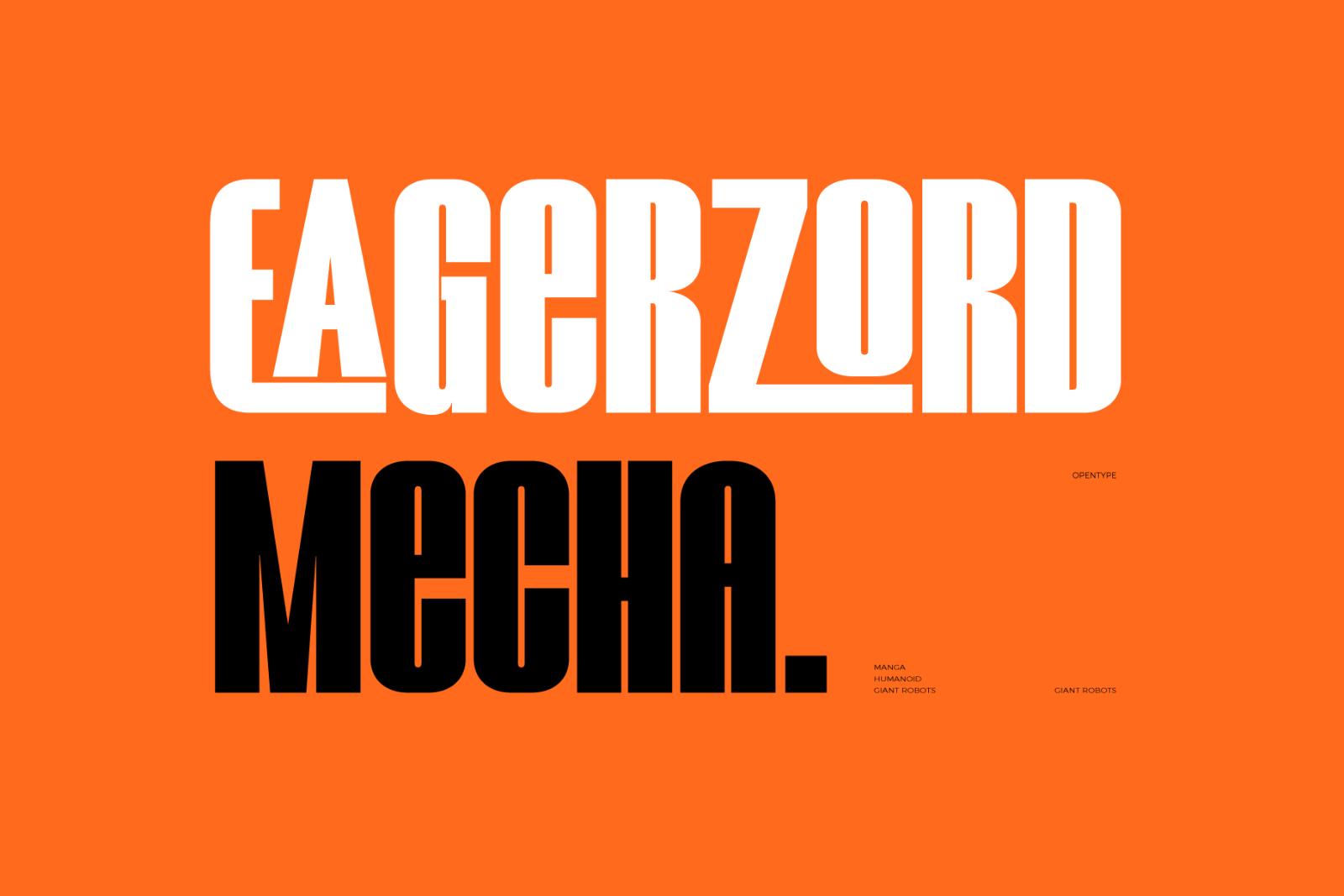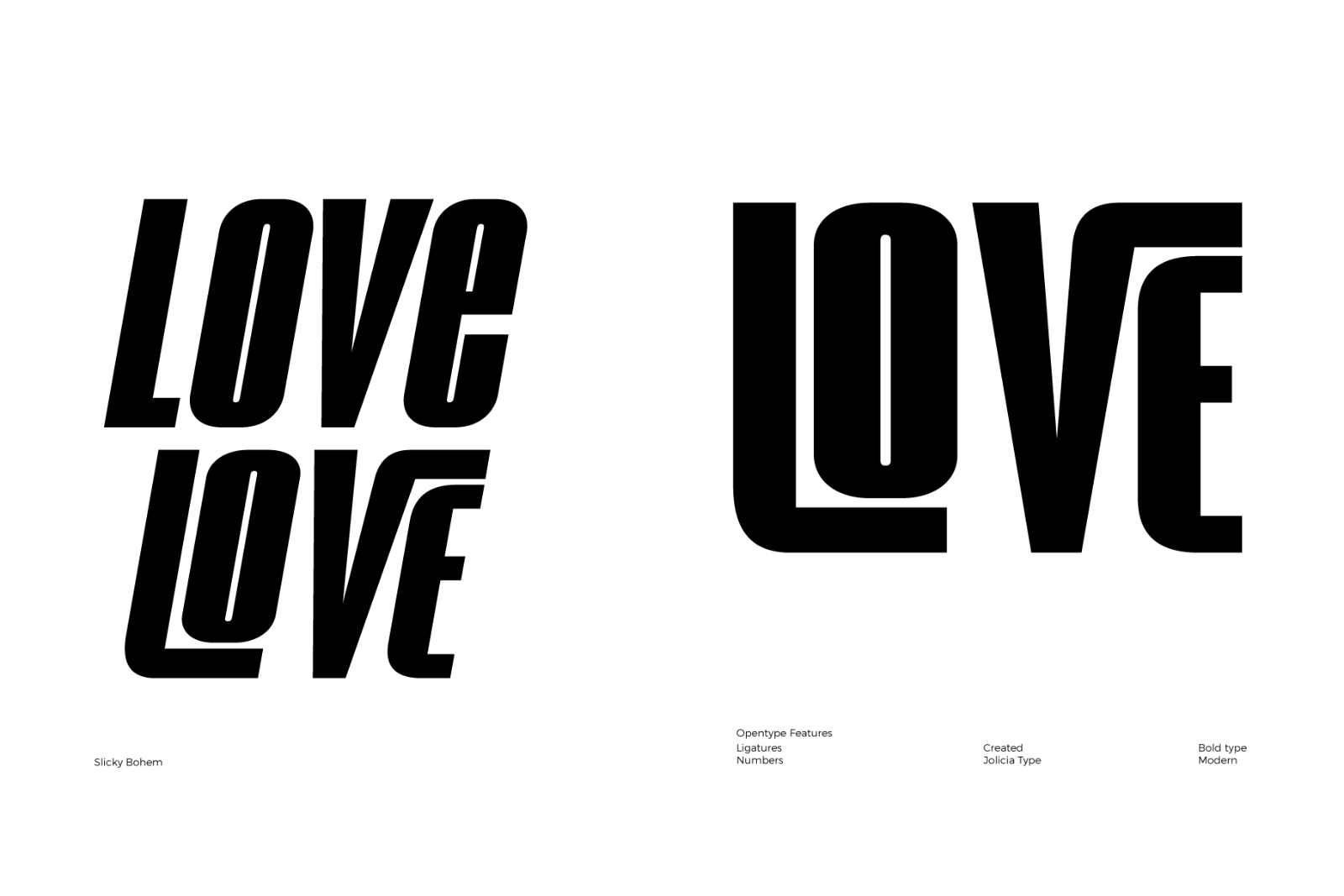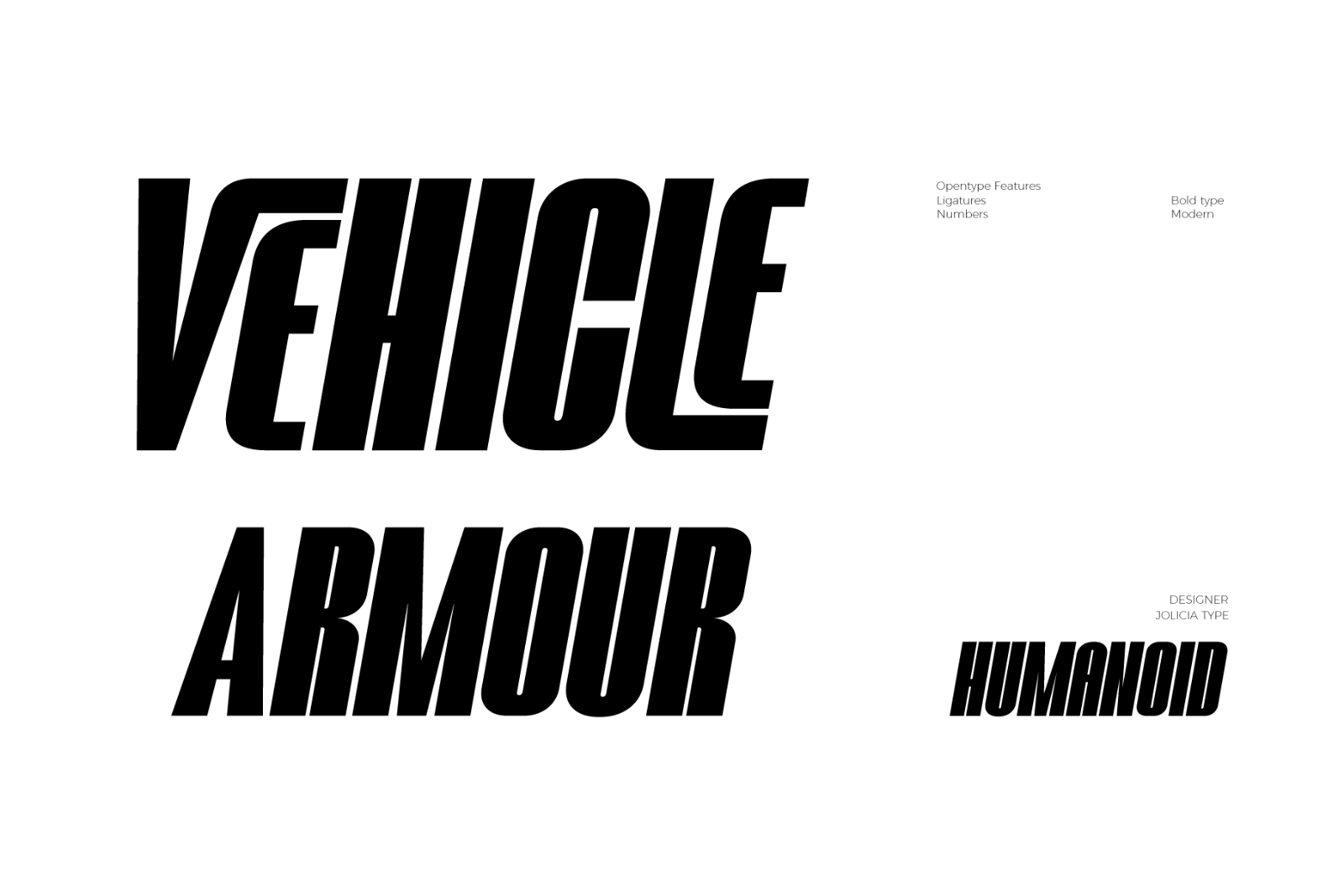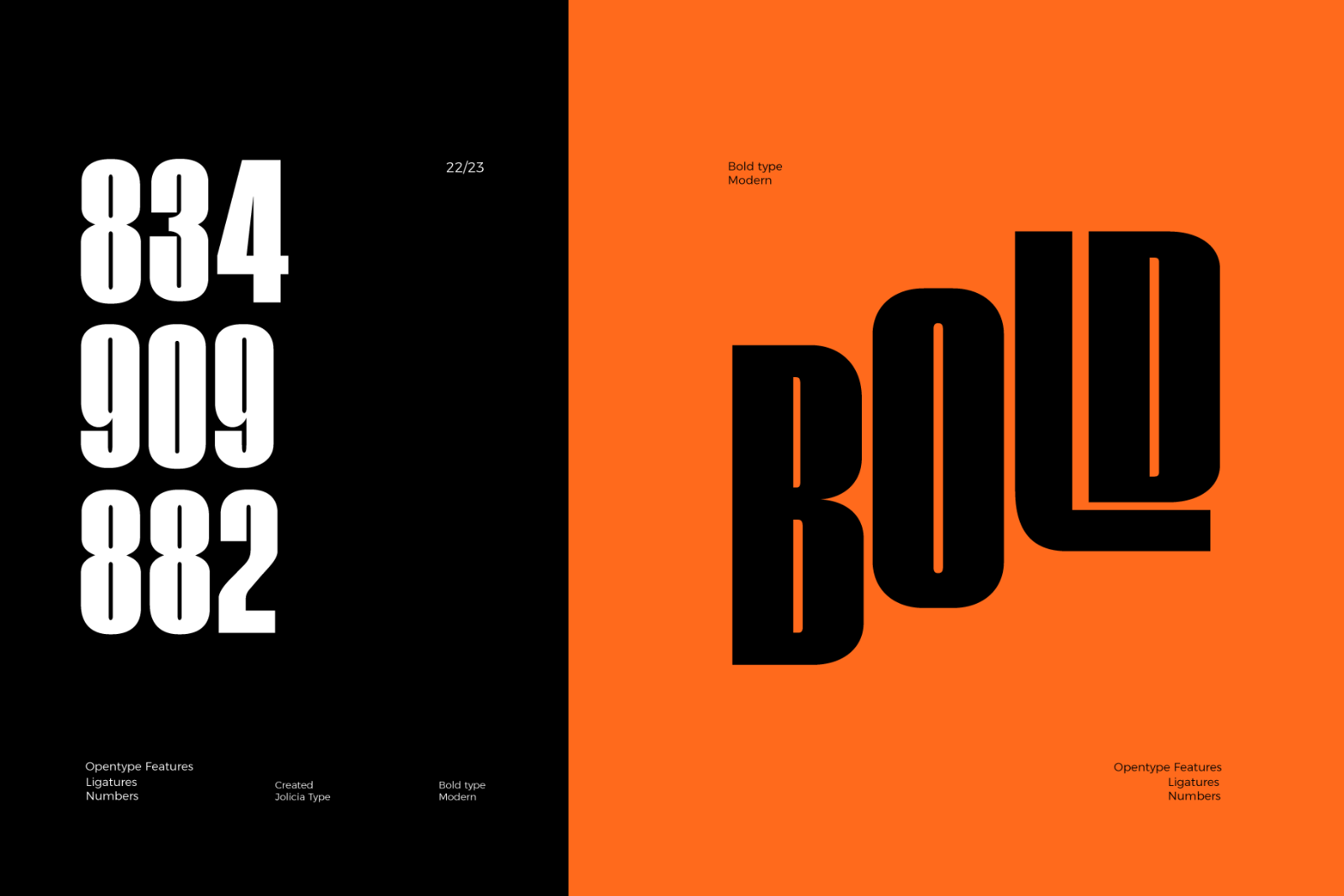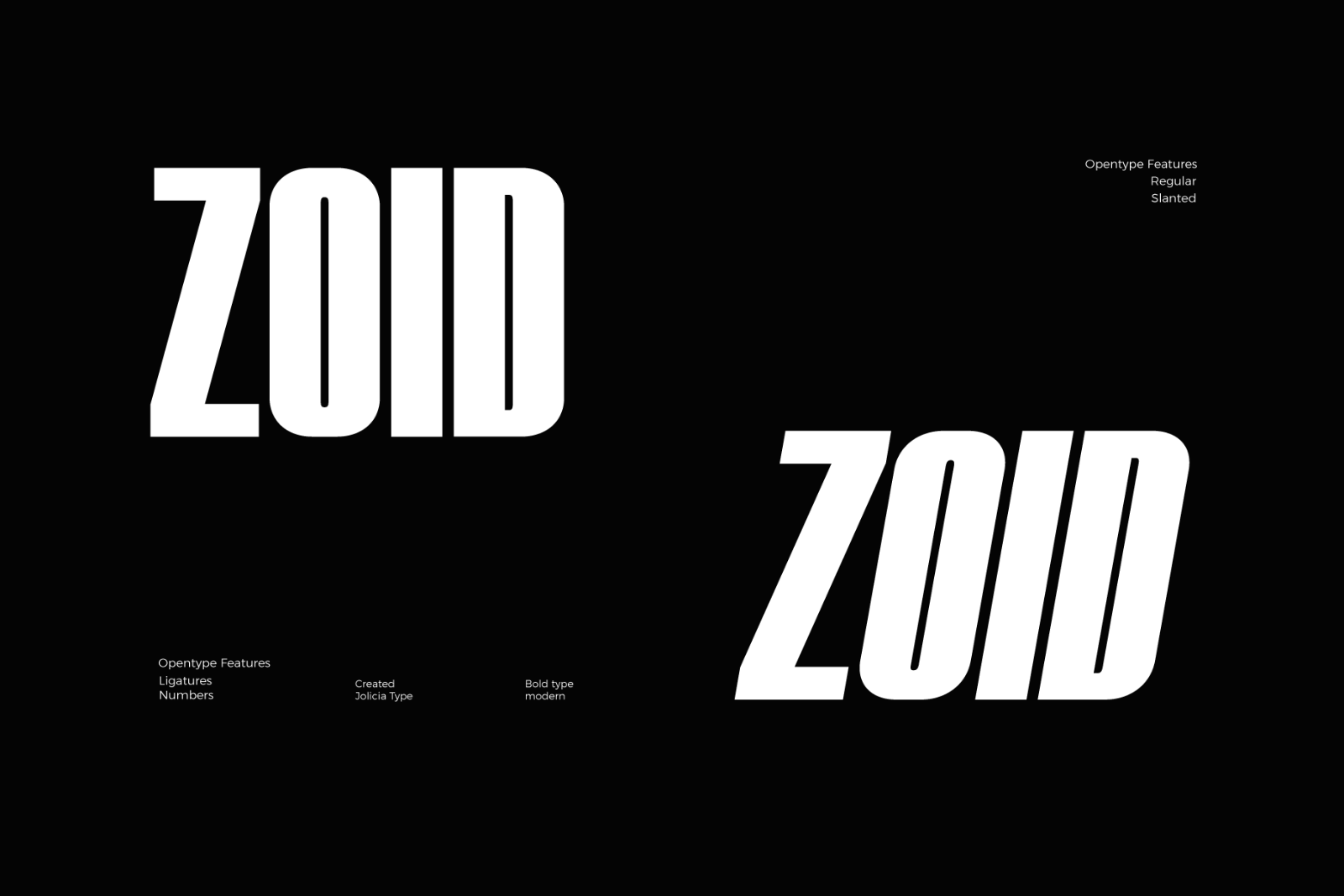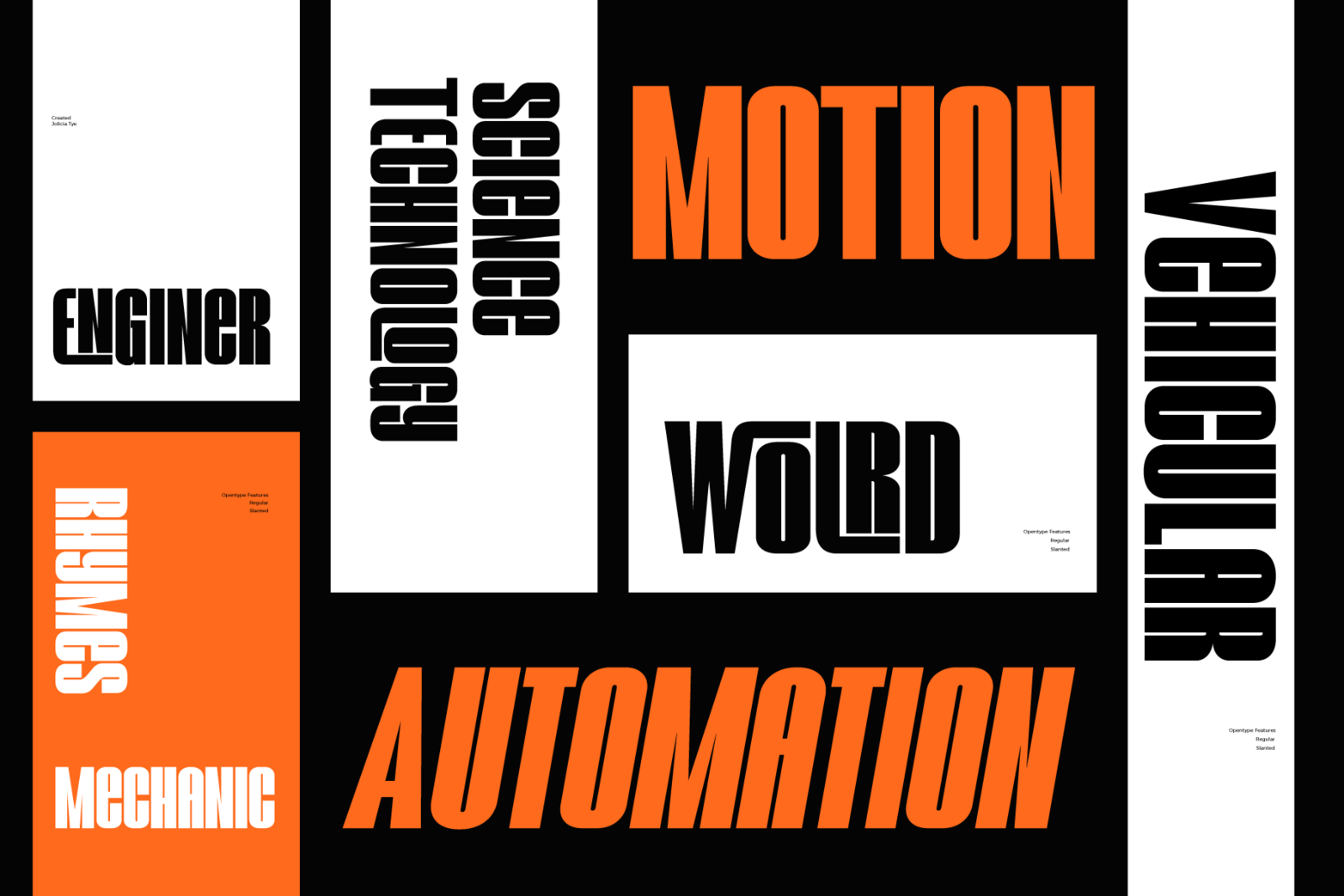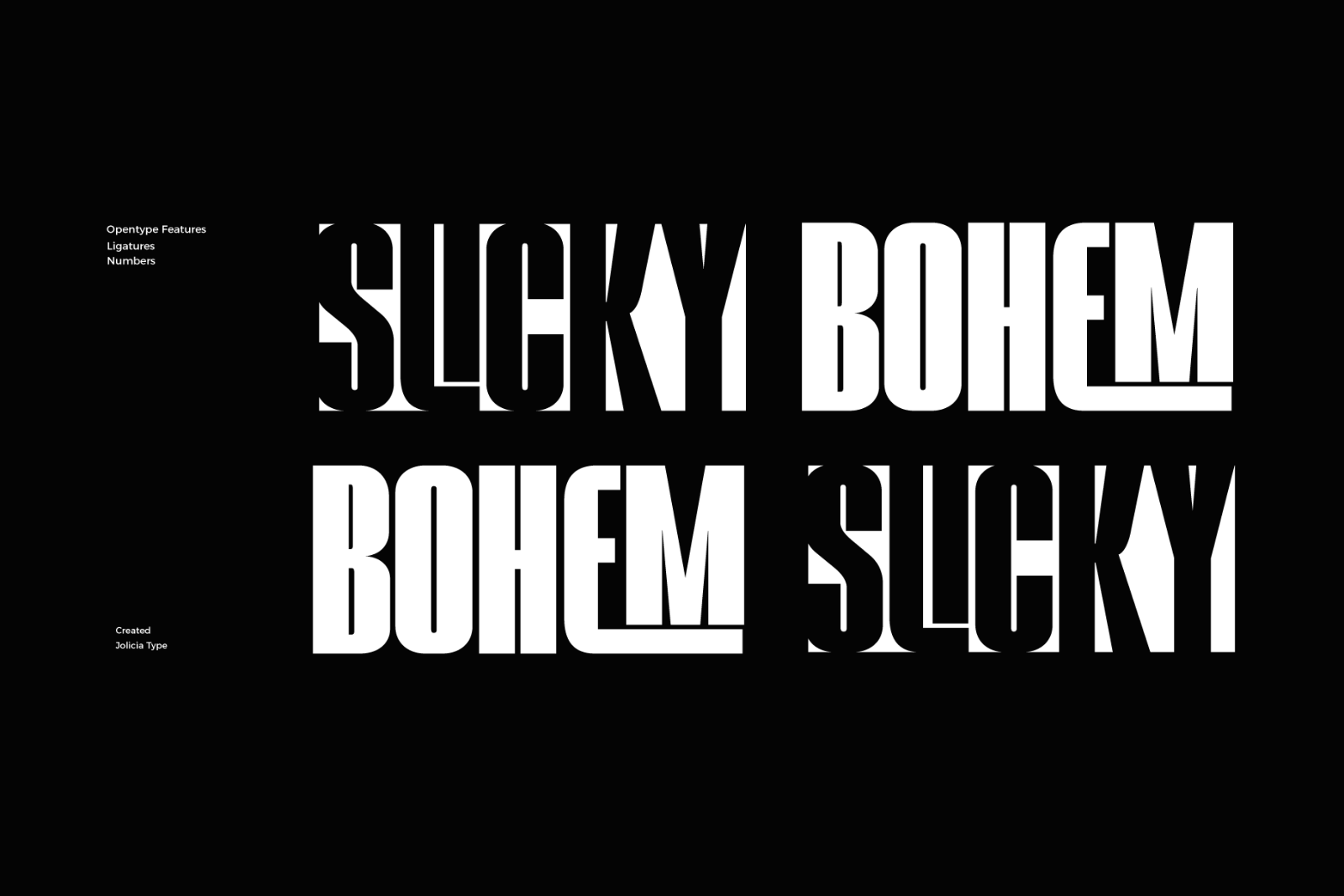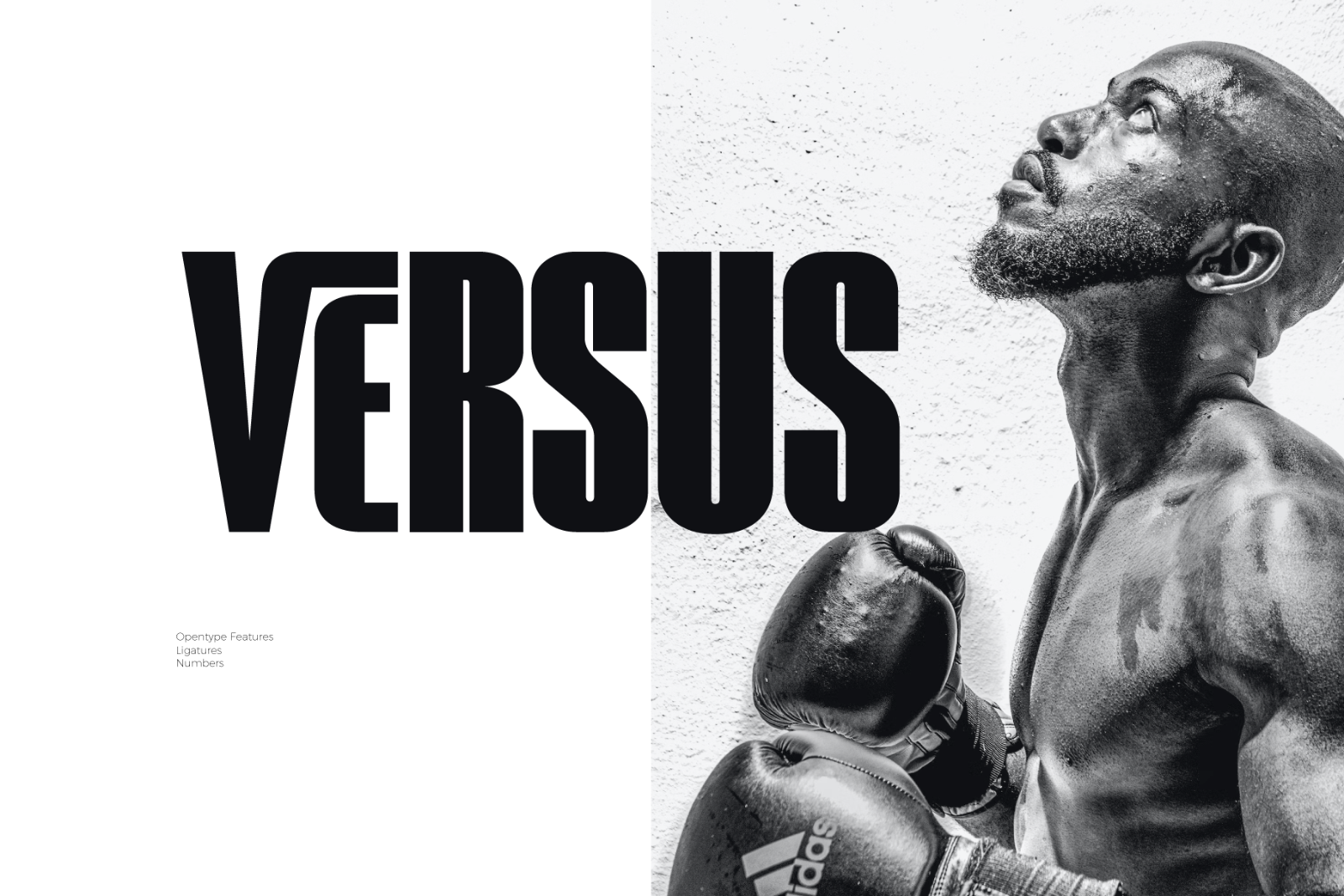
SLICKY BOHEM is a bold condensed typeface that is strong geometric. with a variety of discretionary ligatures to give you all you need for great typography. make your creative work stand out with lots of unique ligatures. highly recommended and those who are planning a poster design, logo, headline, t-shirt, etc.